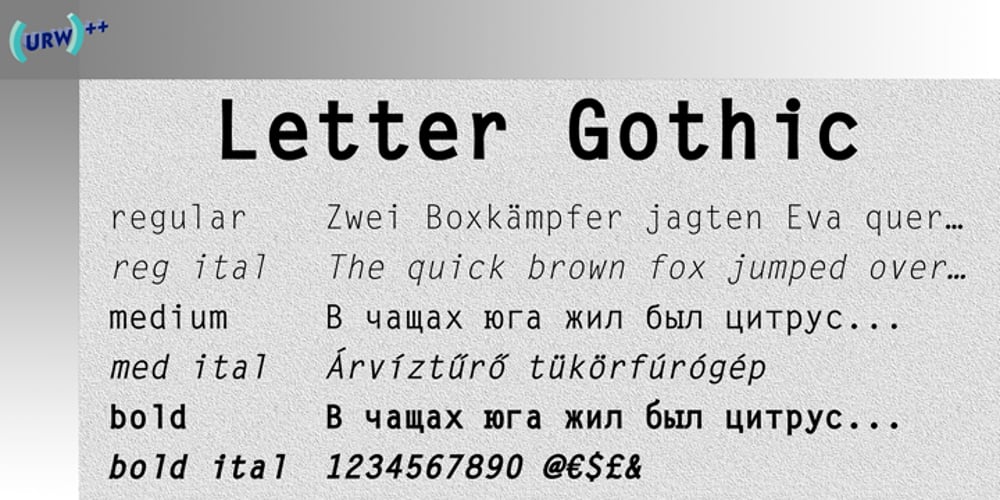
Letter Gothic L Font Family was designed by URW Design Staff and published by URW Type Foundry. Letter Gothic L contains 5 styles and family package options. Letter Gothic was designed for IBM between 1956 and 1962 for use on the Selectric typewriter. Letter Gothic is a monospaced, sans serif face that can be useful for technical documentation and tabular work.